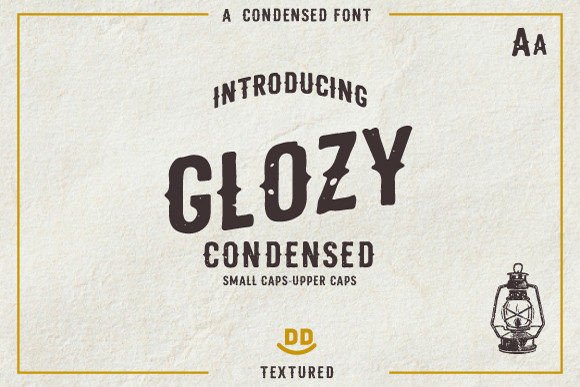
**Introducing Glozy: The Enchanting Font for Unforgettable Creations**
Ignite your creative spark with Glozy, an exquisite display font that weaves a spell of vintage charm into your designs. Embark on an artistic adventure as you explore its intricate characters, each imbued with a touch of timeless elegance.
**Unleash the Magic of Typography**
With Glozy, your words will dance across the page, captivating your audience with their alluring texture and refined style. Its versatility knows no bounds, making it the perfect choice for a wide range of creative endeavors:
* **Spellbinding Posters:** Craft eye-catching posters that command attention with bold headlines and enchanting quotes.
* **Distinctive Labels:** Create unforgettable labels that enhance your products with a touch of vintage charm.
* **Mesmerizing Apparel:** Design captivating apparel that becomes a canvas for your artistic expression.
* **Typography with Soul:** Elevate your designs to new heights with Glozy's captivating texture that adds depth and intrigue to every character.
**Immerse Yourself in a Vintage Wonderland**
Glozy transports you to a bygone era, where typography was an art form. Its vintage-inspired aesthetic evokes a sense of nostalgia, adding a touch of timeless allure to your creations.
**A Font with a Story**
Behind Glozy lies the passion of DiptoDesign, a team of skilled typographers dedicated to crafting fonts that inspire and empower designers. Their artistry shines through in every curve and stroke, ensuring that Glozy becomes an integral part of your creative journey.